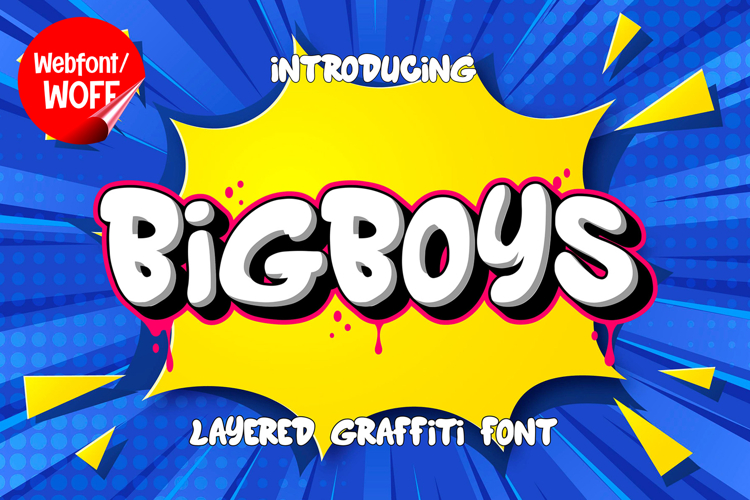
Bigboys | 3D Layered Graffiti Webfont for Bold Urban Design
Bigboys is a 3D layered graffiti webfont designed to bring bold street-art energy and dimensional urban style into modern website design. Inspired by oversized graffiti murals, throw-up lettering, and layered spray-paint effects, this font features chunky shapes and dynamic depth that create a powerful and eye-catching visual identity. It is an excellent choice for projects that aim to deliver authentic urban aesthetics with strong visual impact.
Bigboys includes a complete set of uppercase characters designed with graffiti-inspired forms enhanced by layered 3D styling. The letterforms feature thick curves, bold proportions, and dimensional shadow effects that create depth and movement. These characteristics make it ideal for headlines, banners, hero sections, promotional graphics, and featured content where strong urban visuals are needed.
In addition to letters, the font includes numbers and punctuation, allowing flexible usage across various parts of a website. It works well for streetwear branding, gaming websites, music platforms, esports graphics, creative portfolios, and digital campaigns. Each character maintains a consistent layered graffiti style, ensuring a cohesive and unified visual identity throughout the design.
With multilingual support, Bigboys includes a wide range of accented characters, making it suitable for international websites and global audiences. This ensures content remains clear and visually consistent across different languages while preserving the bold and expressive graffiti aesthetic.
The 3D layered graffiti style of Bigboys makes it especially suitable for hip hop branding, entertainment platforms, urban-themed websites, and youth-oriented digital campaigns. Its dimensional structure and oversized appearance create a powerful street-art atmosphere that helps websites stand out in visually competitive environments. The layered depth adds visual excitement and modern urban character while maintaining a clean display structure.
Despite its bold and decorative appearance, Bigboys is designed with readability in mind. The spacing and proportions are carefully balanced to ensure clarity, particularly in display sizes. This allows designers to use the font effectively for impactful headings and short content without sacrificing usability.
Bigboys is a webfont that combines layered graffiti aesthetics with modern digital performance. Its chunky forms, dimensional depth, and urban character create a distinctive typographic presence that enhances website design. For projects that require a strong, energetic, and visually engaging graffiti font, Bigboys offers a versatile and powerful solution.